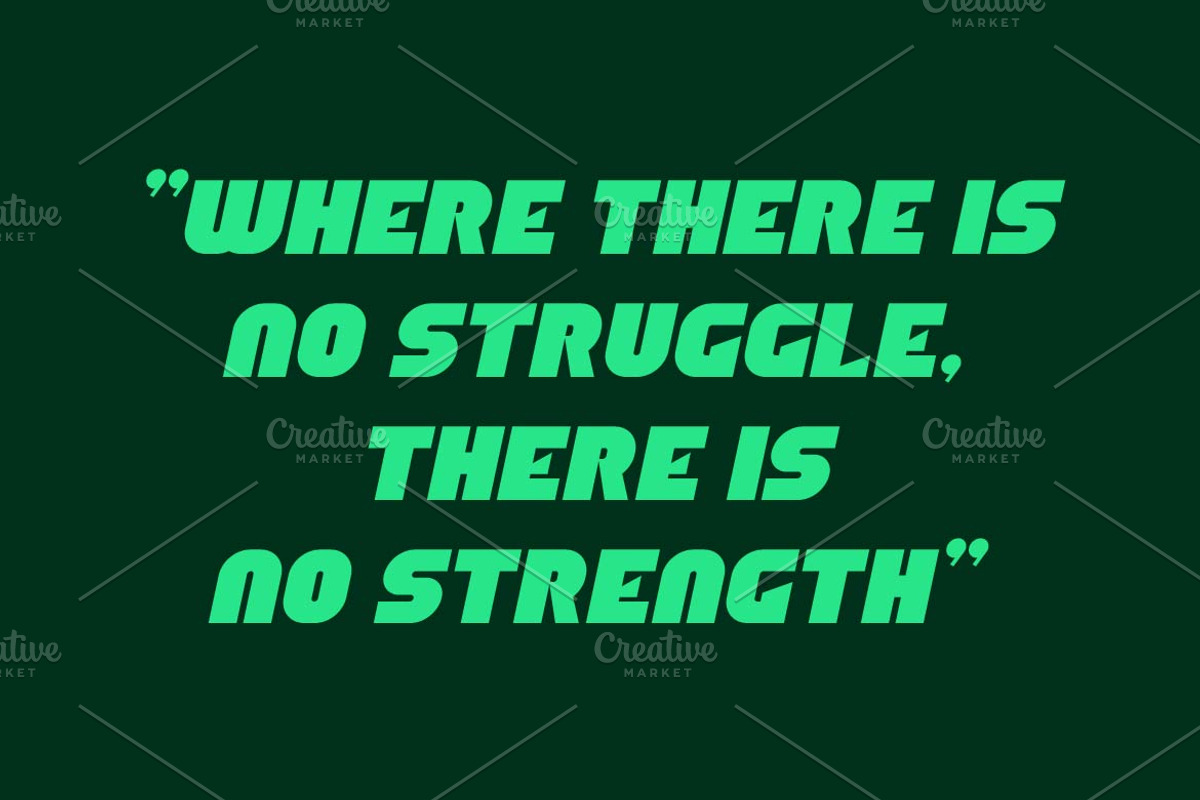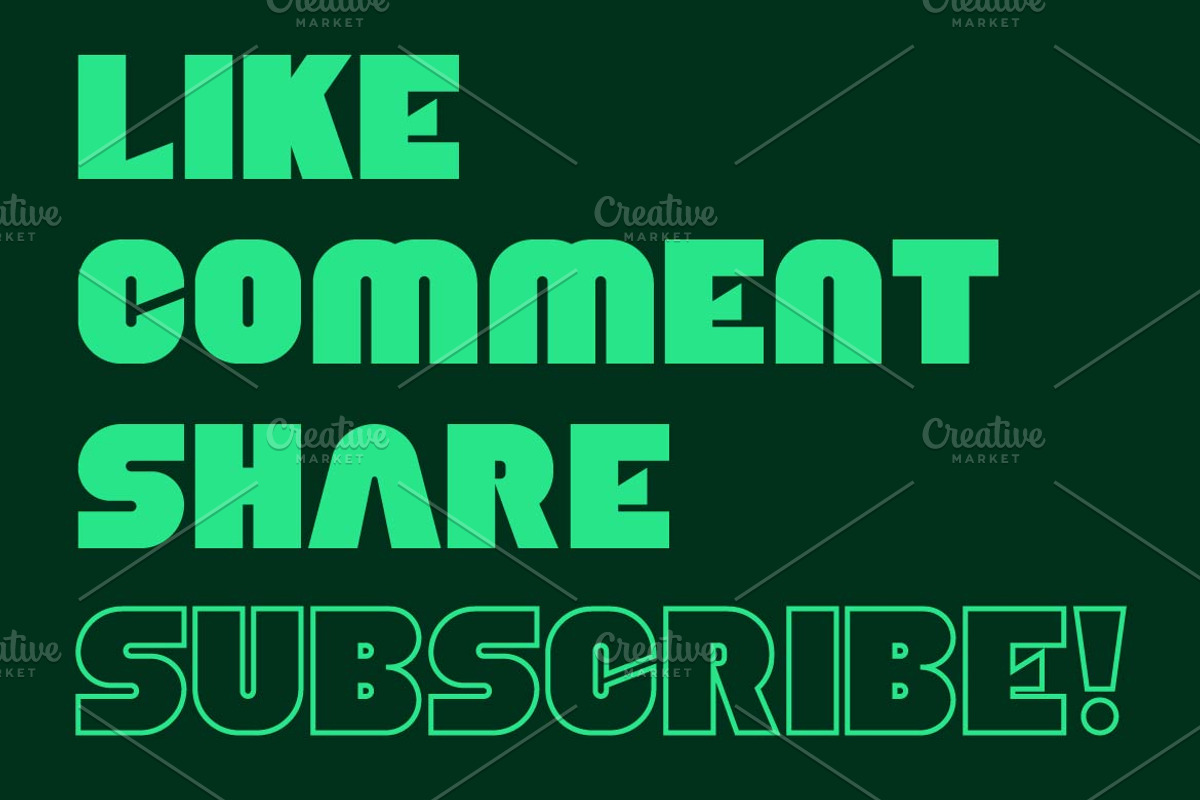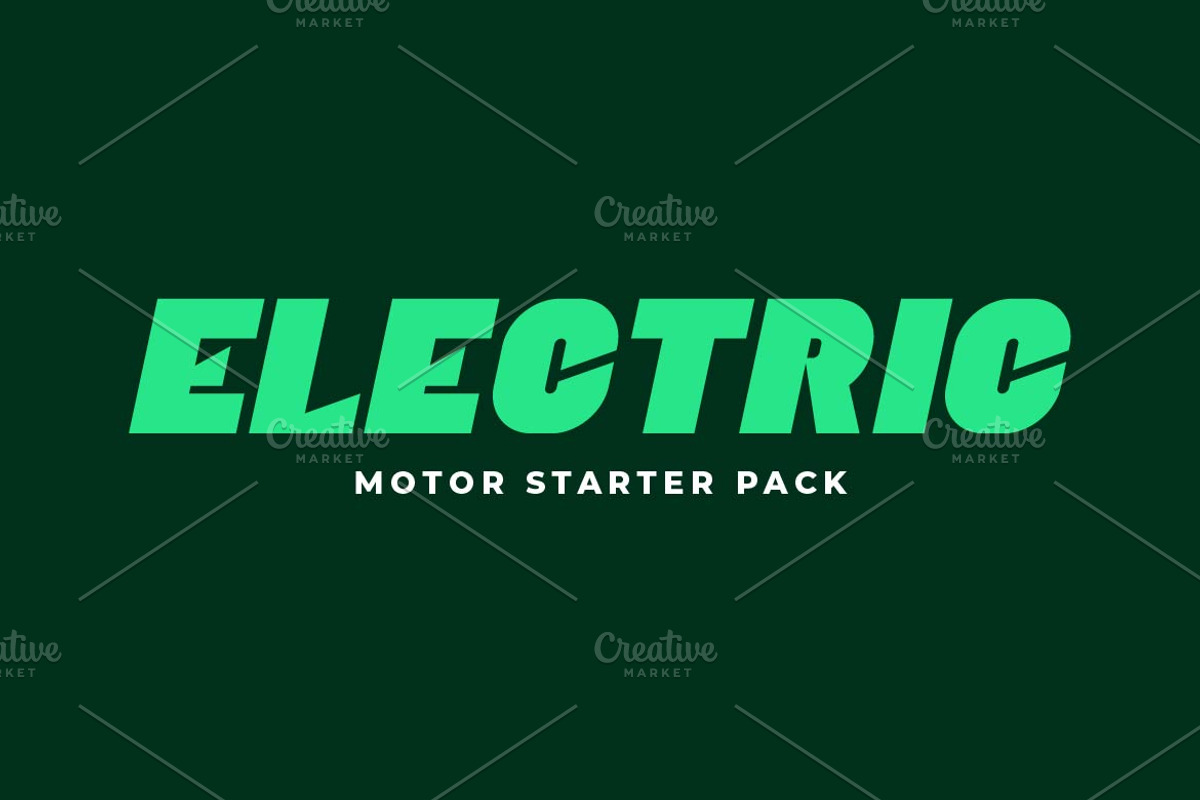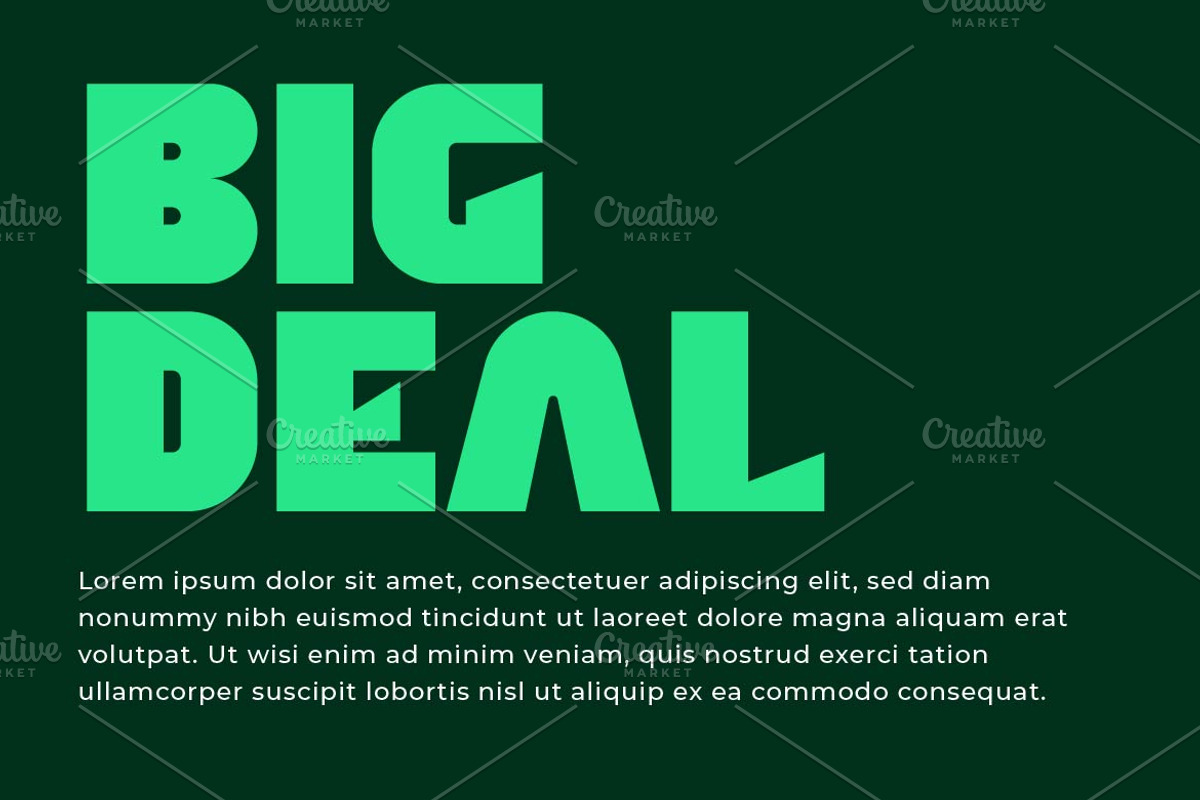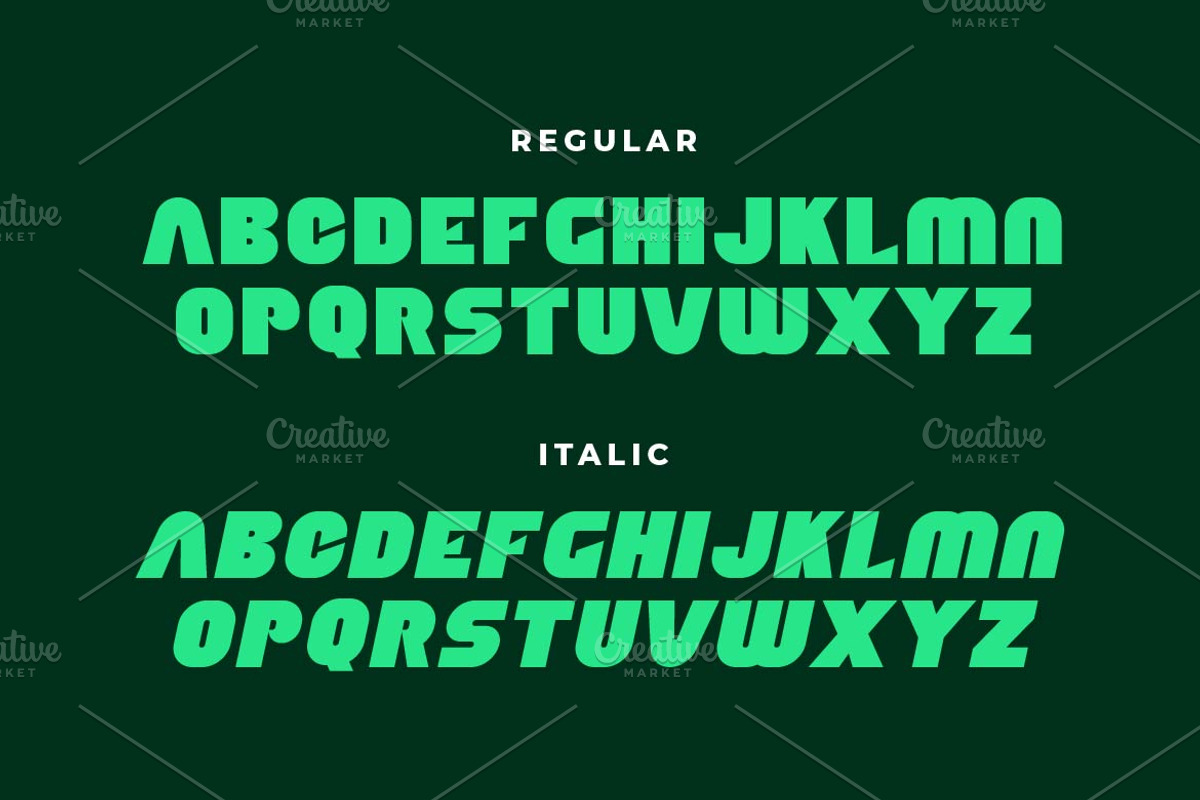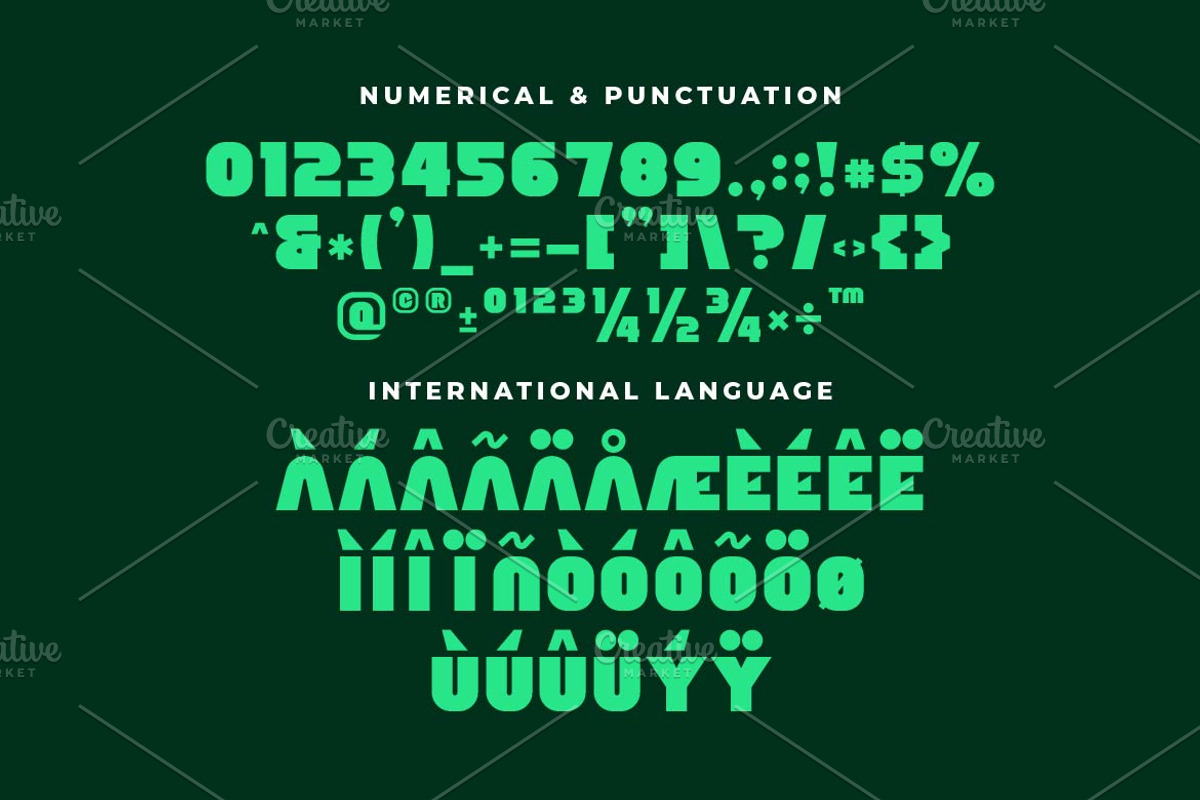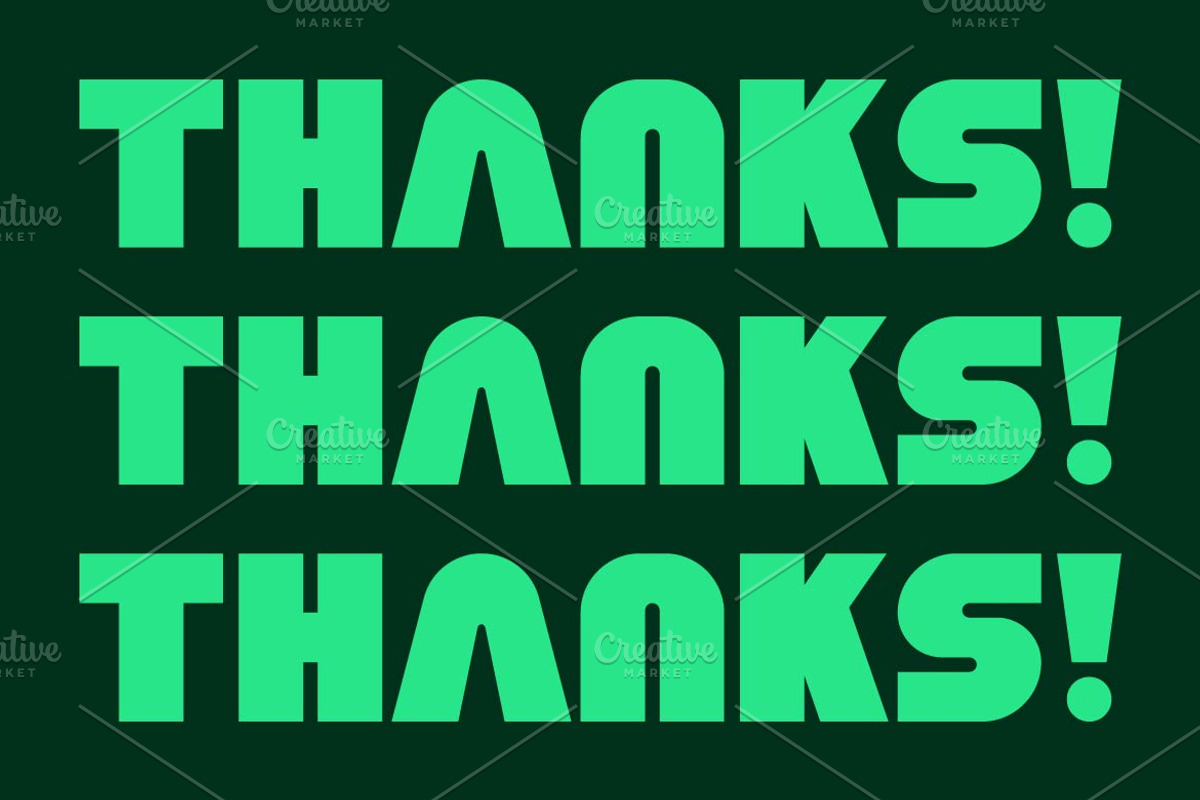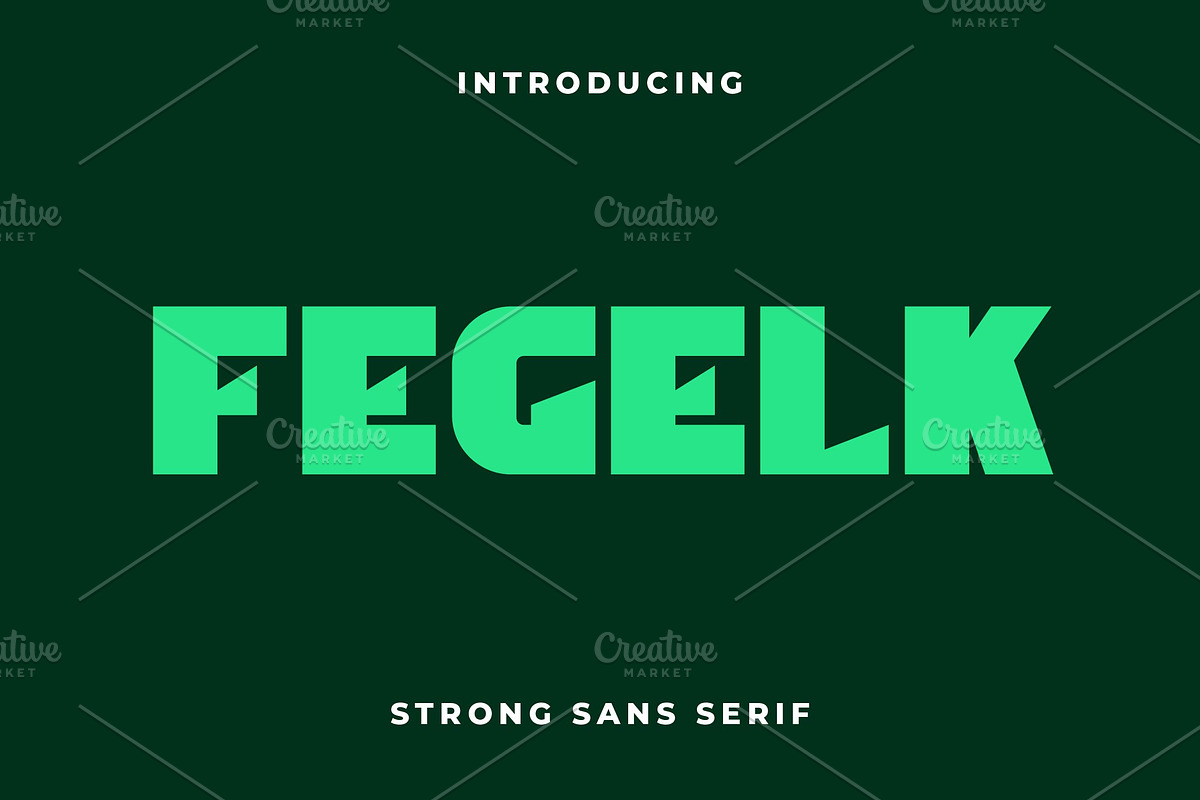
Fegelk Strong Font
Fegelk is a strong and bold font designed with powerful letterforms that command attention. Ideal for branding, sports, posters, and impactful headlines, Fegelk combines strength with a modern edge. Featuring multilingual support, ligatures, and alternates, this versatile typeface ensures readability and presence, making it the perfect choice for projects that require a bold and confident look.